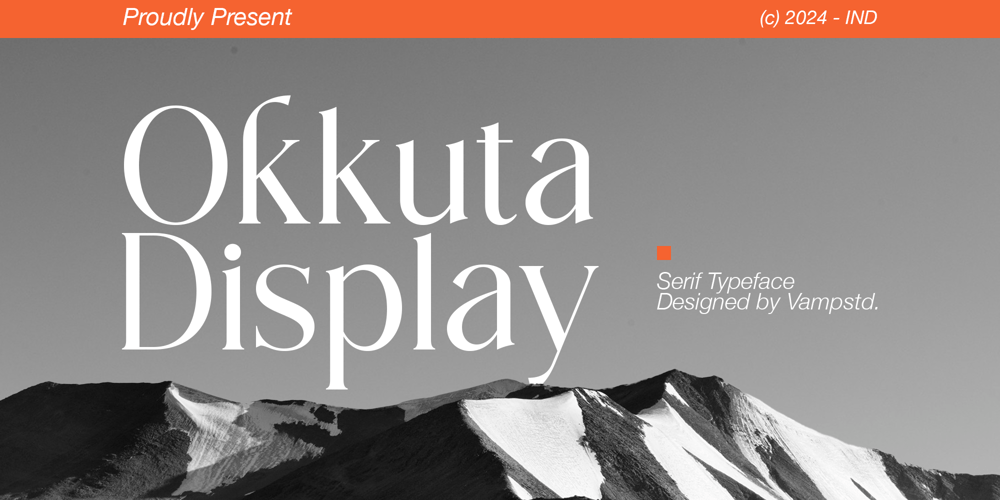
Okkuta Font Family was designed by Irfan syah and published by Vampstudio. Okkuta contains 1 styles and family package options. Okkuta is modern elegant serif font. This font looks very simple, clean, and elegant. Specially designed by skilled hands makes this font is the perfect fit for all your big projects.Okkuta is perfect for branding projects, logo, wedding designs, social media posts, advertisements, product packaging, product designs, label, photography, watermark, invitation, stationery and any projects that need Elegant and stylish taste.